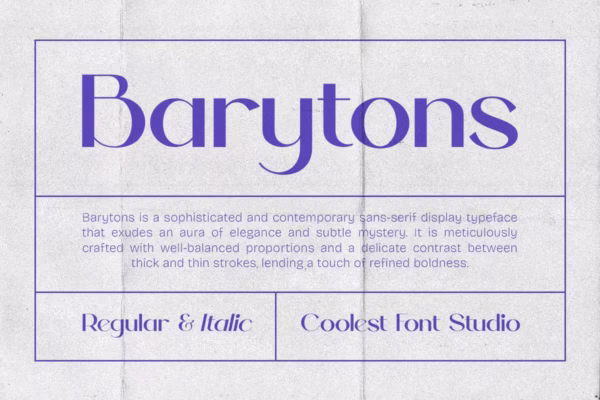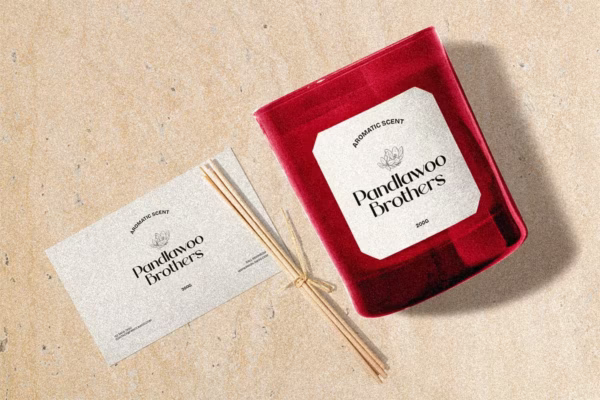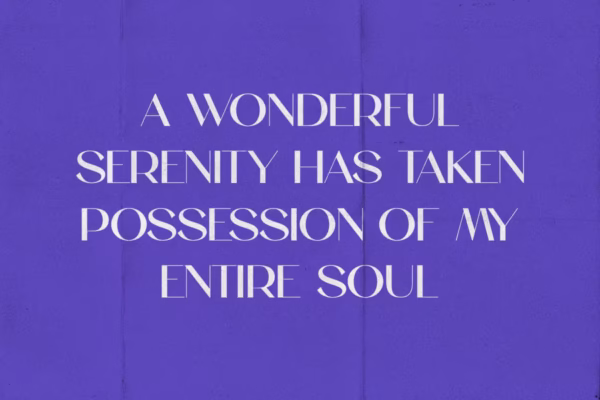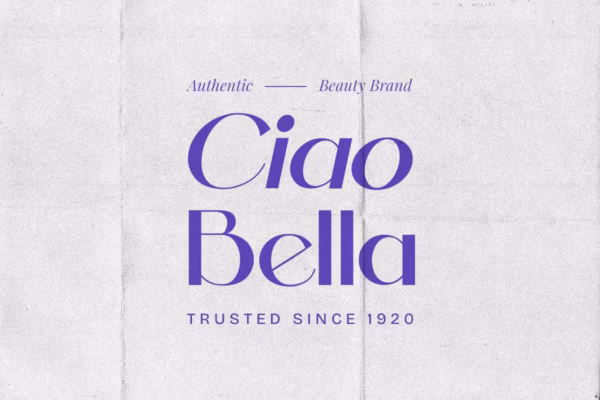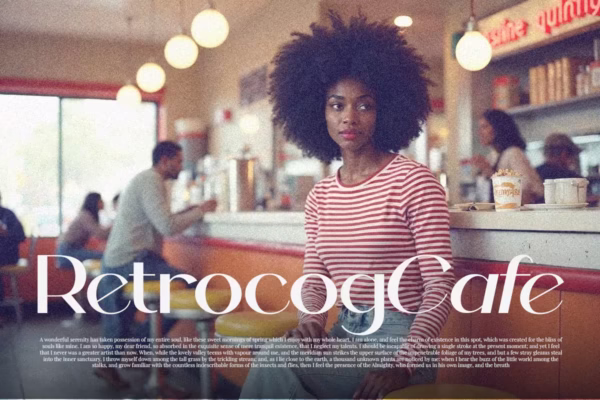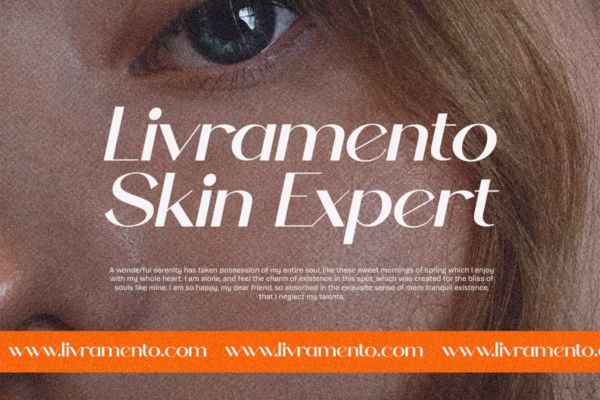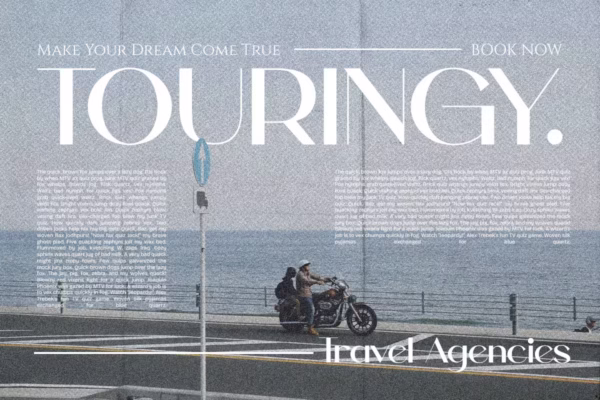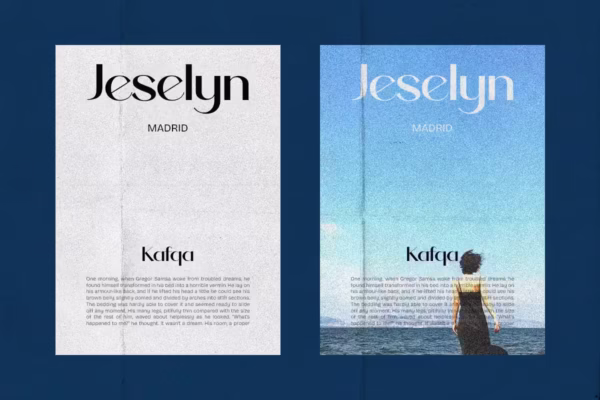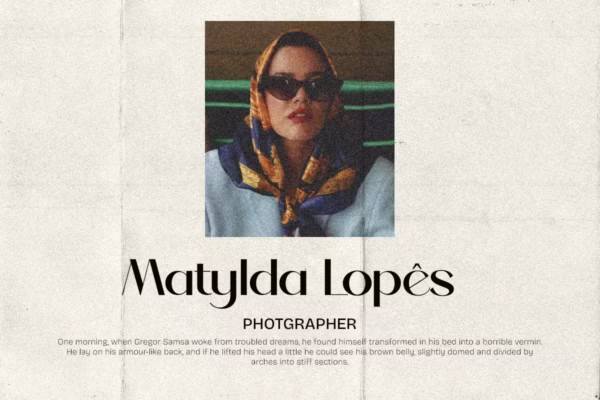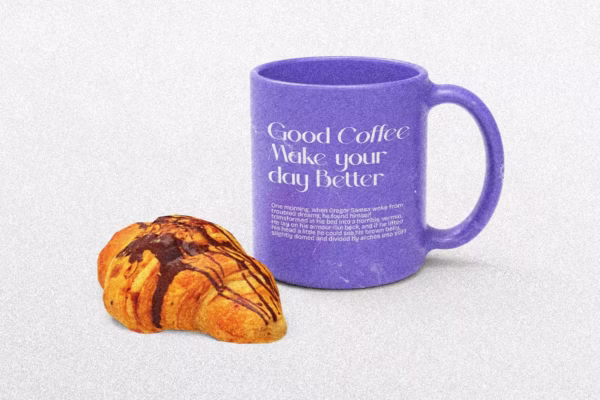
Barytons – Sans Serif Font
Barytons is a modern sans serif font featuring clean lines and a professional appearance. It comes in two styles—Regular and Italic making it perfect for versatile design needs. Ideal for branding, headlines, posters, logos, and digital content, Barytons delivers readability and elegance in every layout. With multilingual support and PUA encoding, this font ensures a smooth design experience across platforms.
Barytons – Sans Serif Font
Barytons is a clean and modern sans serif font that brings a bold and professional vibe to your designs. With its minimalist structure and strong geometric lines, Barytons is perfect for branding, headlines, posters, logos, and editorial layouts.
This versatile typeface comes in two styles: Regular and Italic, allowing you to mix and match for better visual hierarchy and creative balance. Whether you’re designing for digital or print, Barytons ensures clarity and elegance in every context.
• Modern & clean sans serif style
• Easy to read at any size
• Perfect for branding, headlines, and UI/UX design
• Supports multiple languages
Bring a sleek, modern touch to your next project with Barytons!